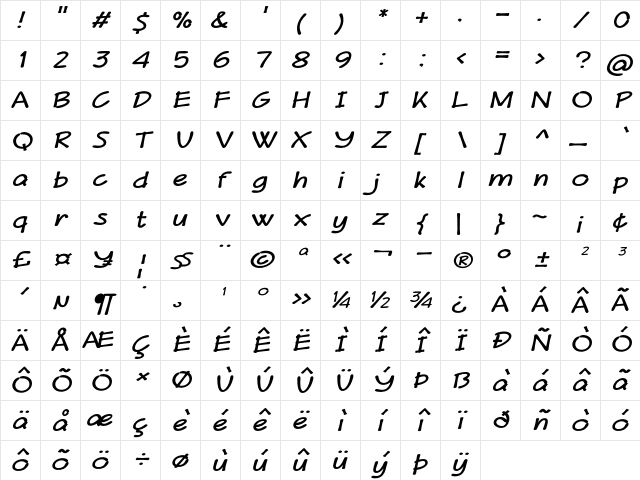
Headmaster Expanded Italic
Style: Expanded Italic
Headmaster Family
Design Context for Headmaster
Headmaster is a composed and adaptable typeface that performs quietly and consistently across a wide range of design contexts. The slanted form adds forward momentum and visual energy.
Pro Tip: Use Headmaster for emphasis, pull quotes, and subheadings where its slanted energy can add rhythm to the layout.